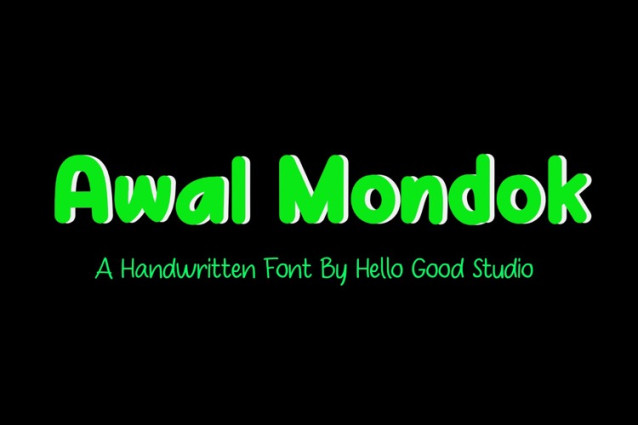
Awal Mondok Font
Awal Mondok Font is a chunky, comic, and cartoon display font. With its neat and joyful personality, this font will enhance any project you wish to create!